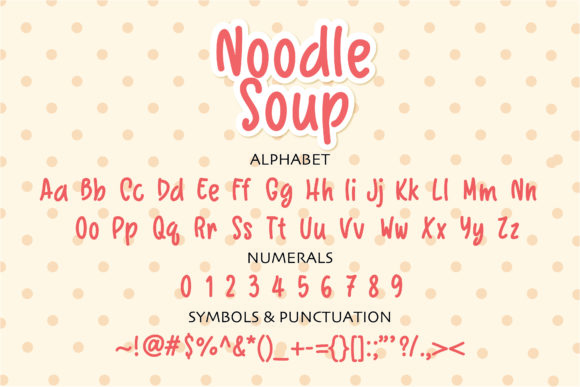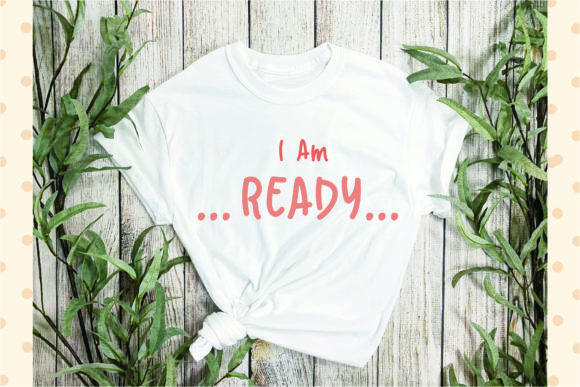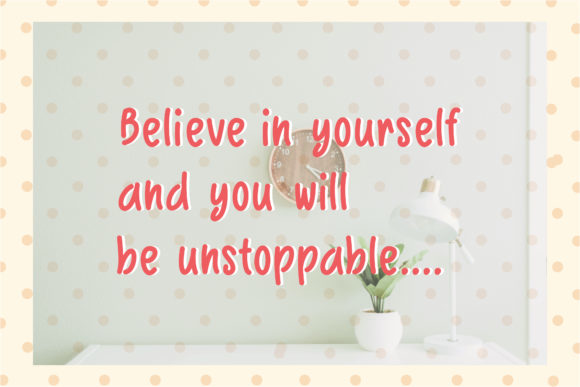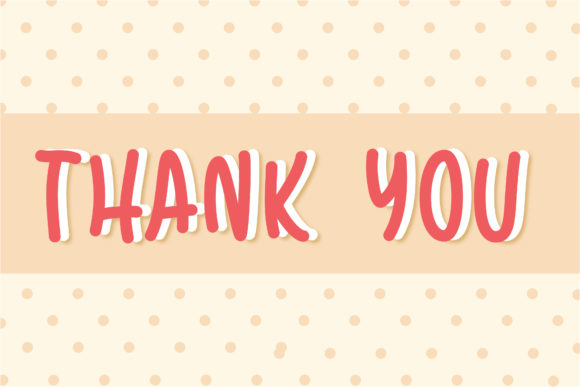
Introduction to Noodle Soup Font
Do you remember the feeling of scribbling down a love letter to your crush in high school? The messy handwriting, the nervous excitement, and the satisfaction of putting your thoughts onto paper? That’s the magic of handwritten fonts, and Noodle Soup Font is no exception. This charming script font is the perfect addition to any design project that needs a personal touch.
Whether you’re a seasoned designer or a hobbyist, the Noodle Soup Font is a valuable resource that will elevate your creative projects. Its natural and unique style makes it incredibly versatile, allowing you to explore endless variations and applications. From wedding invitations to logos, business cards to greeting cards, this font is the perfect fit for any design that requires a handwritten touch.
Key Features of Noodle Soup Font
- Unique, hand-drawn design with a transparent background for versatility
- Perfect for use in digital and print media, including logos, branding, and graphics
- Available in 5 font styles, including bold and italic variations
- Designed to be a unique and creative addition to any design project
Honest Review: Noodle Soup Font
I recently stumbled upon the Noodle Soup Font, and I must say it’s a unique addition to my design resource library. As a designer, I appreciate fonts that stand out and bring a fresh touch to creative projects.
What works well about the Noodle Soup Font is its playful and whimsical nature. The characters are well-designed, and the transparent background makes it easy to use on any background color. The font is also available for free download, which is a huge plus for designers on a budget.
- ✨ Unique and playful design
- ✨ Transparent background for easy use
However, there are some limitations to the Noodle Soup Font. The font is not suitable for formal or professional projects, as it may come across as too casual or childish. Additionally, the font may not be compatible with all software or operating systems.
- ⚠️ Not suitable for formal or professional projects
Overall, I’m impressed with the Noodle Soup Font, and I would recommend it to designers looking for a unique and fun font to add to their creative project. Just be sure to use it in the right context and check for compatibility before using it in a project.
Noodle Soup Font
The Noodle Soup Font is a high-quality design resource that offers a unique and creative touch to any project. With its transparent background and free download option, it’s perfect for designers and artists looking for a versatile and easy-to-use font.
Tips for Getting the Most Out of Noodle Soup Font
To get the most out of the Noodle Soup Font, experiment with different font sizes, colors, and layering techniques. Combine the font with other design elements, such as images and shapes, to create visually appealing and creative designs.
The Noodle Soup Font is perfect for a wide range of creative projects, including invitations, posters, and social media graphics. Its unique design and transparent background make it ideal for designers and artists looking for a versatile and easy-to-use font.